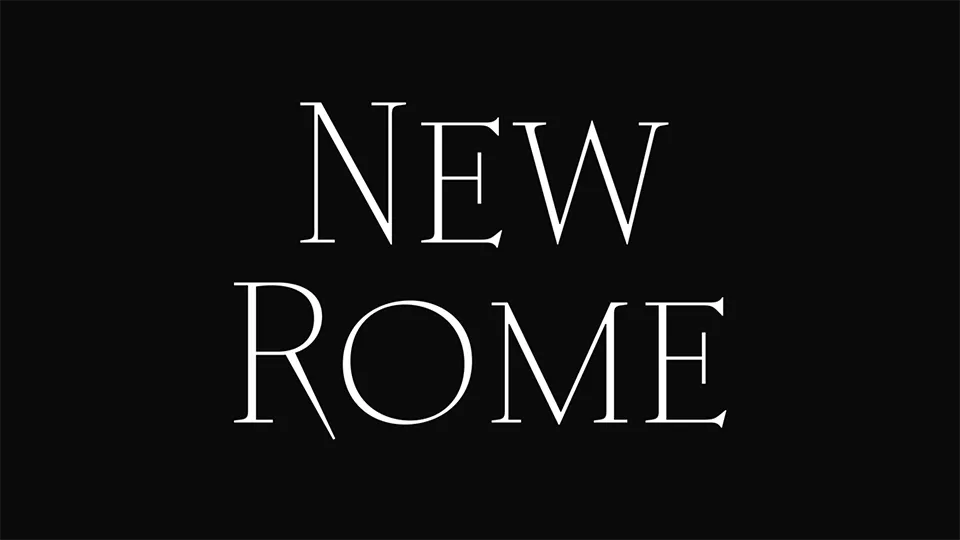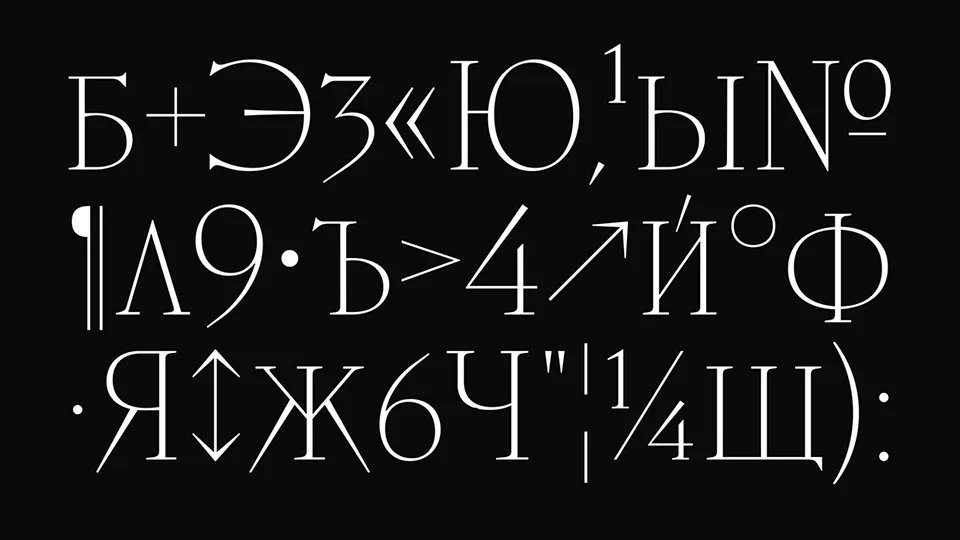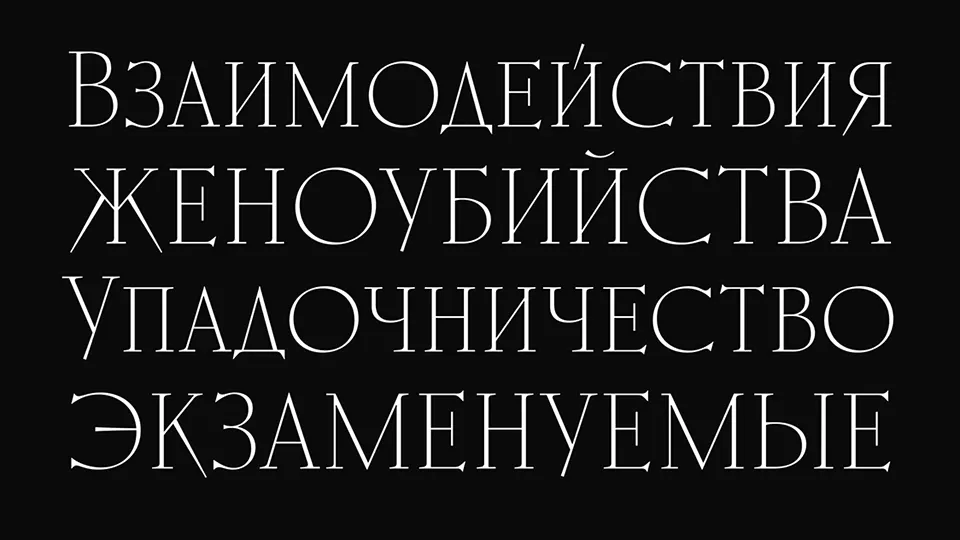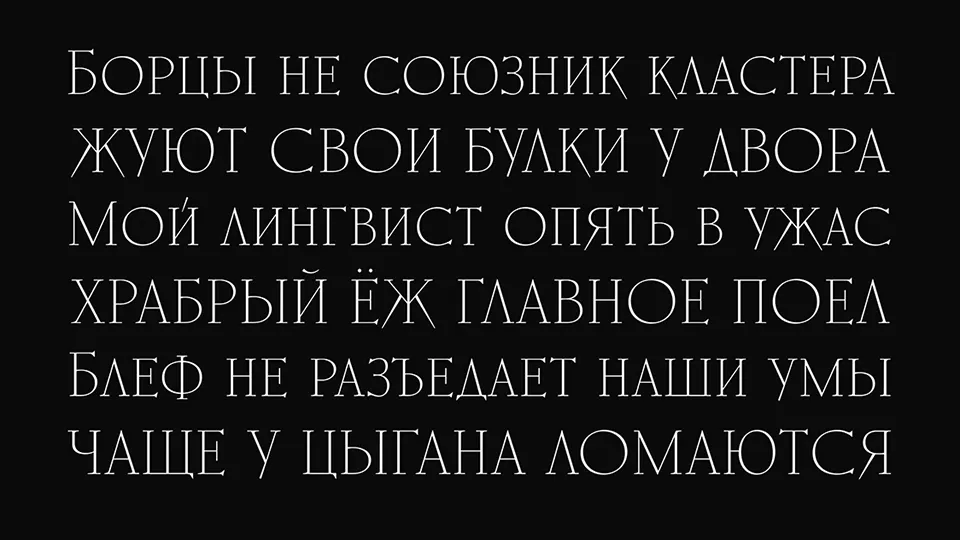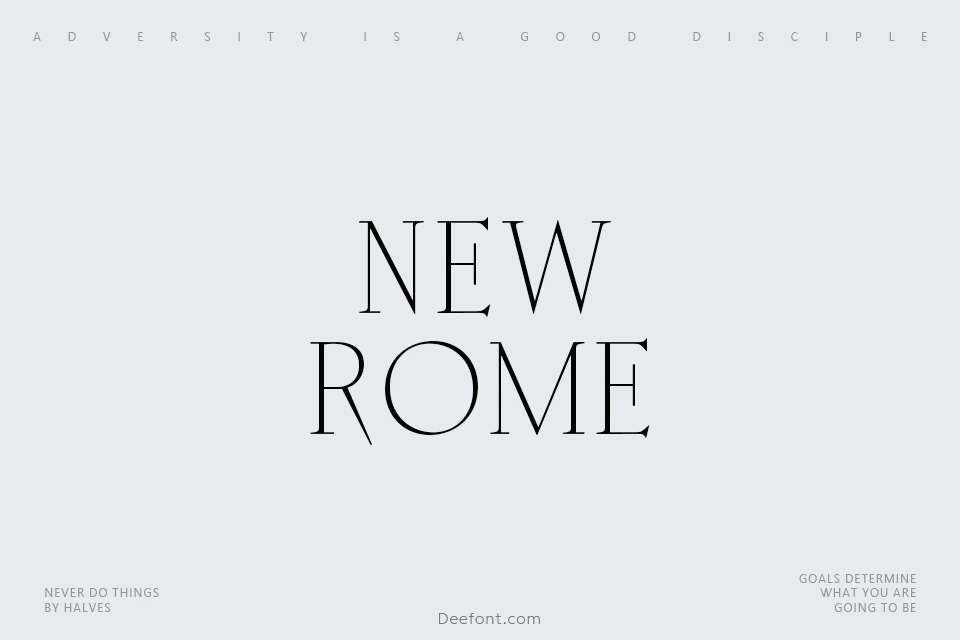
New Rome Font
New Rome Font is a classic serif typeface that blends the timeless elegance of Ancient Rome with a modern design sensibility. Its regal and refined letterforms make it an excellent choice for editorial headlines, branding, and sophisticated visual identities, delivering both tradition and contemporary style to your creative projects.